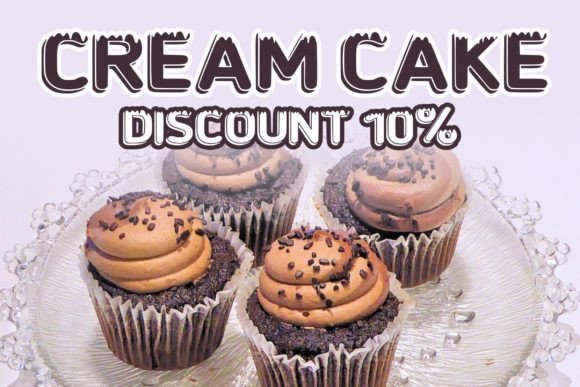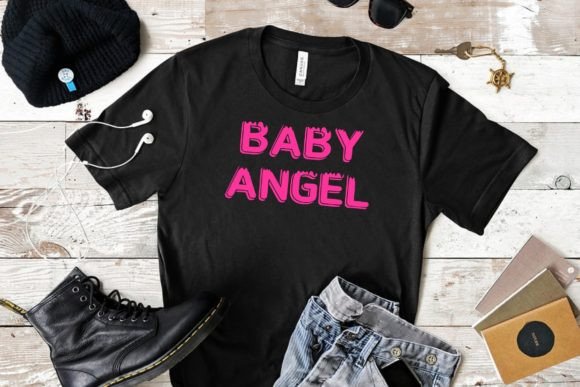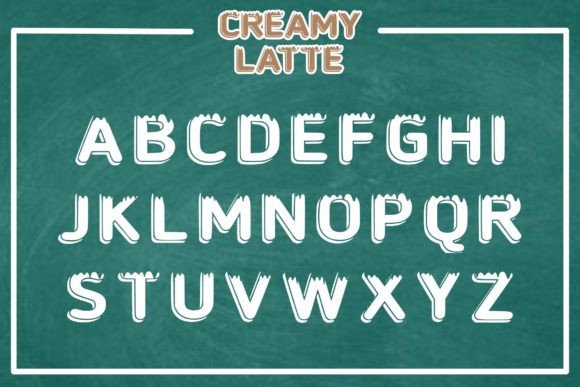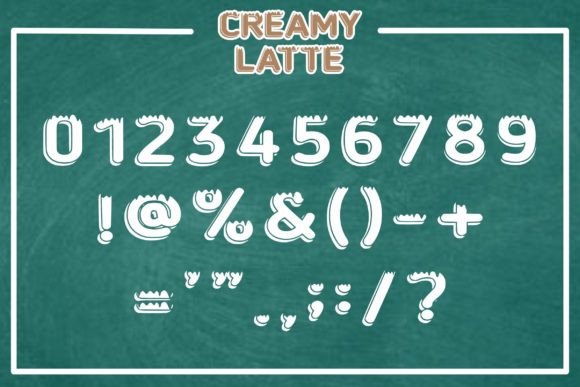
Creamy Latte Font: Elevate Your Designs with a Fun and Aesthetic Touch
Are you tired of using the same old fonts for your creative projects? Look no further than the Creamy Latte font, a fun and display font that is sure to add an aesthetic value to your designs. With its unique and playful style, Creamy Latte is perfect for designers and crafters who want to make their projects stand out from the crowd.
What is Creamy Latte Font?
Creamy Latte is a display font that is designed to add a touch of fun and personality to your designs. Its creamy and smooth texture gives it a distinctive look that is reminiscent of a perfectly crafted latte. The font is highly versatile and can be used for a wide range of projects, from t-shirts and stickers to book covers and social media posts.
Features of Creamy Latte Font
So, what makes Creamy Latte font so special? Here are just a few of its key features:
- Fun and playful style: Creamy Latte font has a unique and playful style that is sure to add a touch of personality to your designs.
- Highly versatile: This font can be used for a wide range of projects, from t-shirts and stickers to book covers and social media posts.
- Easily readable: Despite its playful style, Creamy Latte font is easily readable, making it perfect for use in titles, headings, and other applications where clarity is key.
- Aesthetic value: The creamy texture of this font gives it a distinctive look that is sure to add an aesthetic value to your designs.
Uses of Creamy Latte Font
So, what can you use Creamy Latte font for? The possibilities are endless, but here are a few ideas to get you started:
- T-shirts and apparel: Add a fun and playful touch to your t-shirts and other apparel with Creamy Latte font.
- Stickers and labels: Use Creamy Latte font to create eye-catching stickers and labels that are sure to stand out.
- Book covers and children’s books: Add a touch of whimsy to your book covers and children’s books with Creamy Latte font.
- Social media posts: Use Creamy Latte font to create engaging and eye-catching social media posts that are sure to grab attention.
- Invitations and greeting cards: Add a personal touch to your invitations and greeting cards with Creamy Latte font.
Why Choose Creamy Latte Font?
So, why should you choose Creamy Latte font for your next project? Here are just a few reasons:
- Unique and playful style: Creamy Latte font has a unique and playful style that is sure to make your designs stand out.
- High-quality design: This font is designed to high-quality standards, ensuring that it looks great in any application.
- Easily customizable: Creamy Latte font is easily customizable, allowing you to adjust the font size, color, and style to suit your needs.
In conclusion, Creamy Latte font is a fun and display font that is sure to add an aesthetic value to your designs. With its unique and playful style, high-quality design, and versatility, it’s perfect for designers and crafters who want to make their projects stand out from the crowd. Whether you’re working on t-shirts, stickers, book covers, or social media posts, Creamy Latte font is a great choice. So why wait? Download Creamy Latte font today and start creating amazing designs!